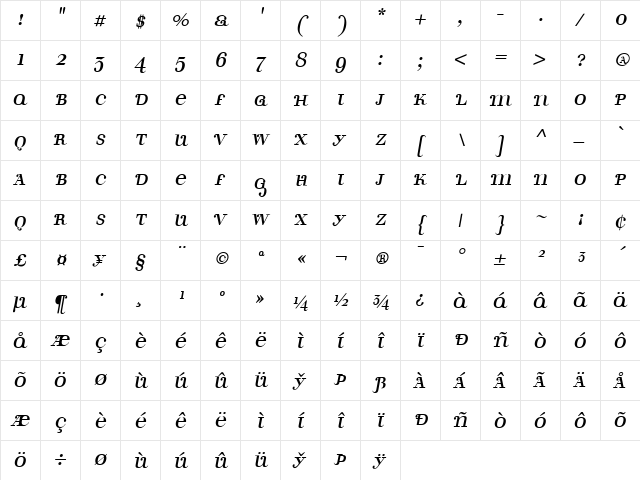
Theodor Regular
Design Context for Theodor Typeface
Theodor is a composed and adaptable typeface that performs quietly and consistently across a wide range of design contexts.